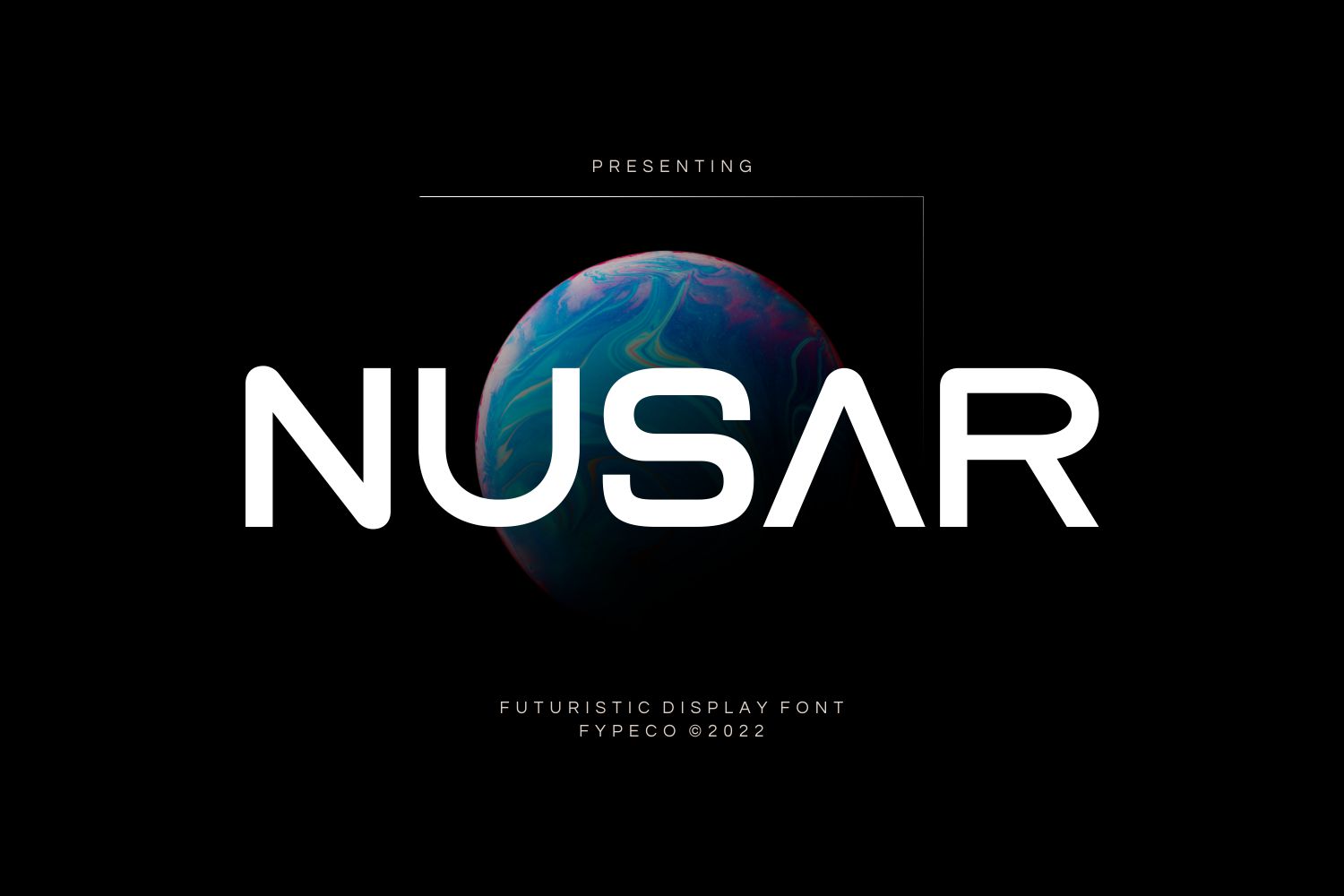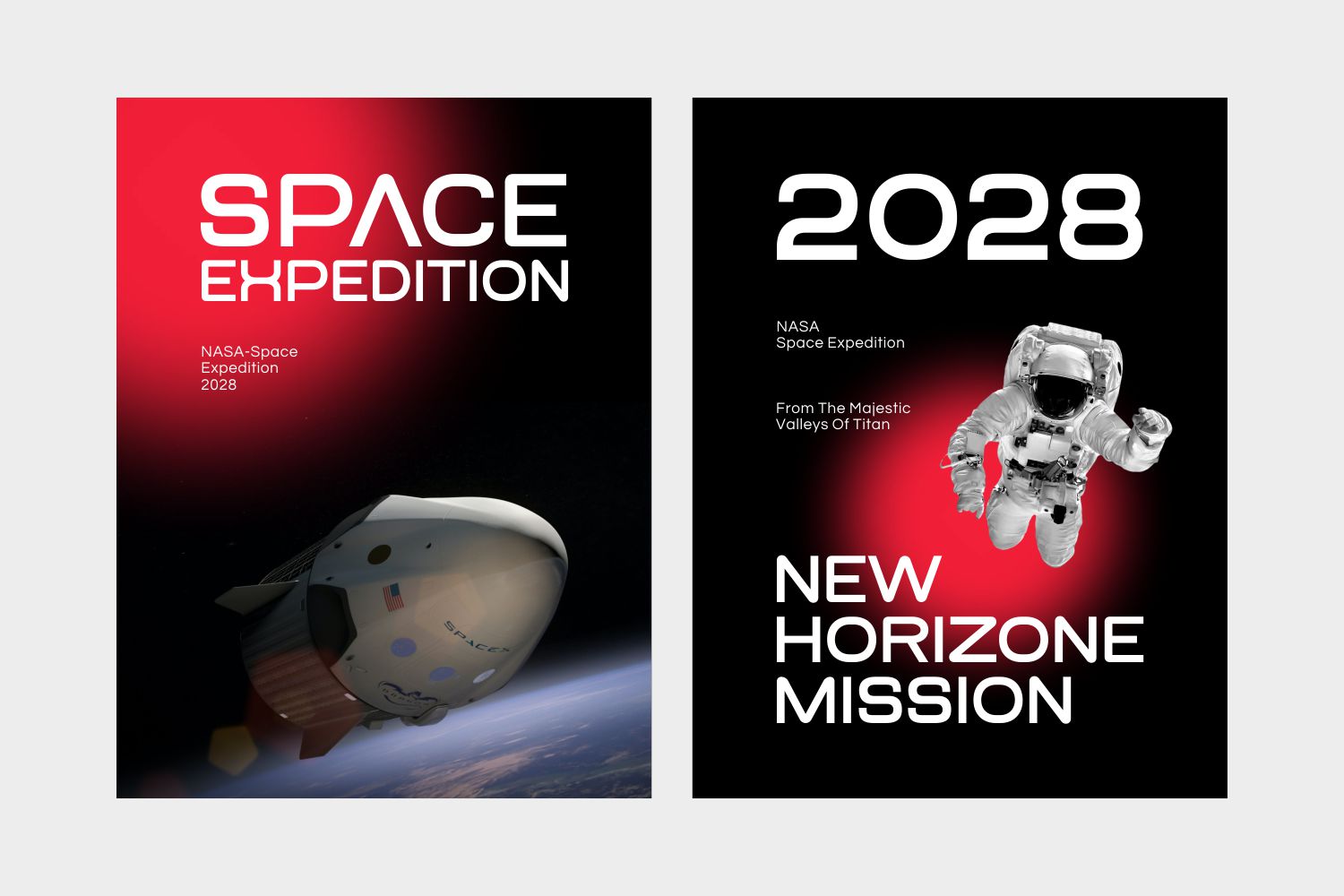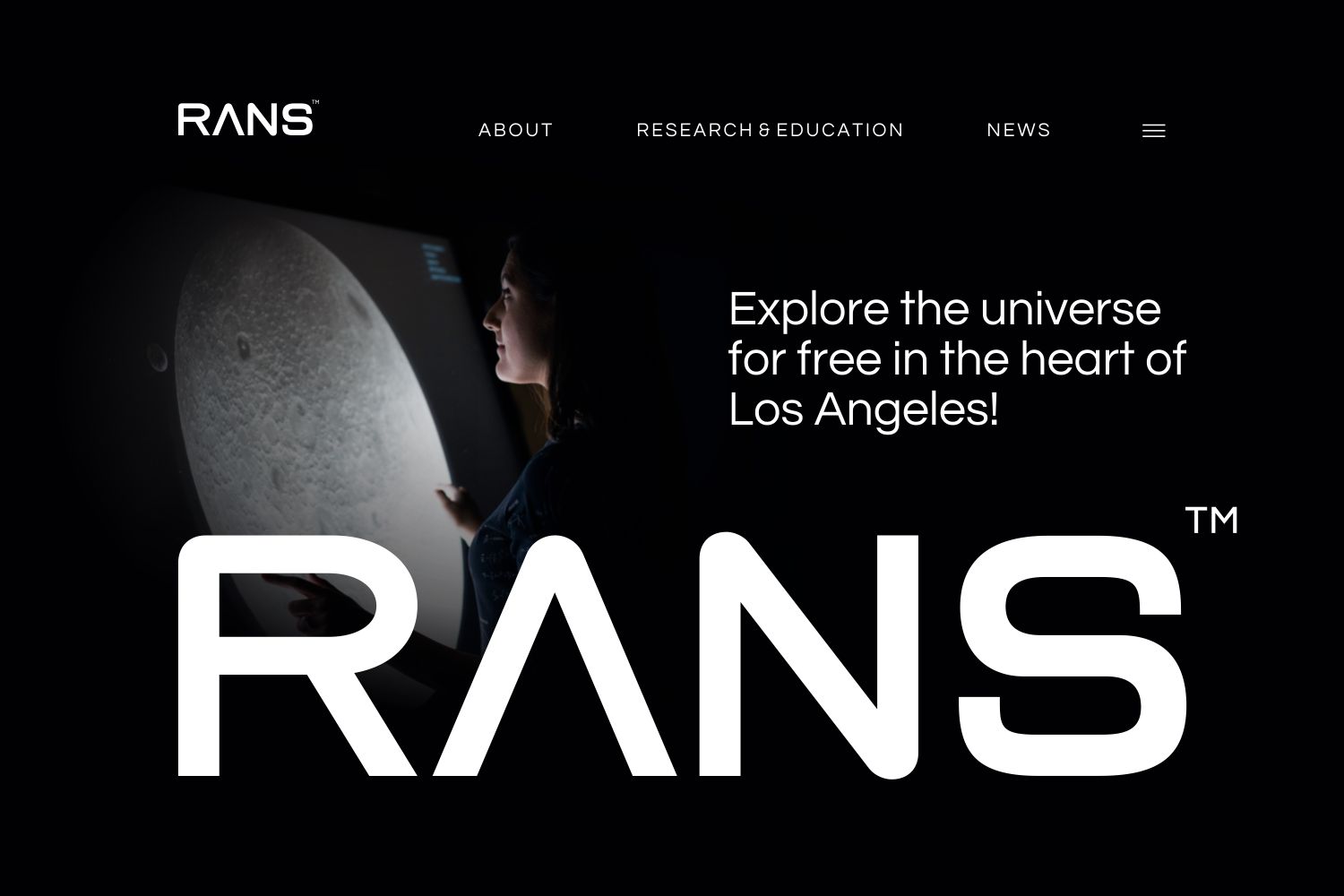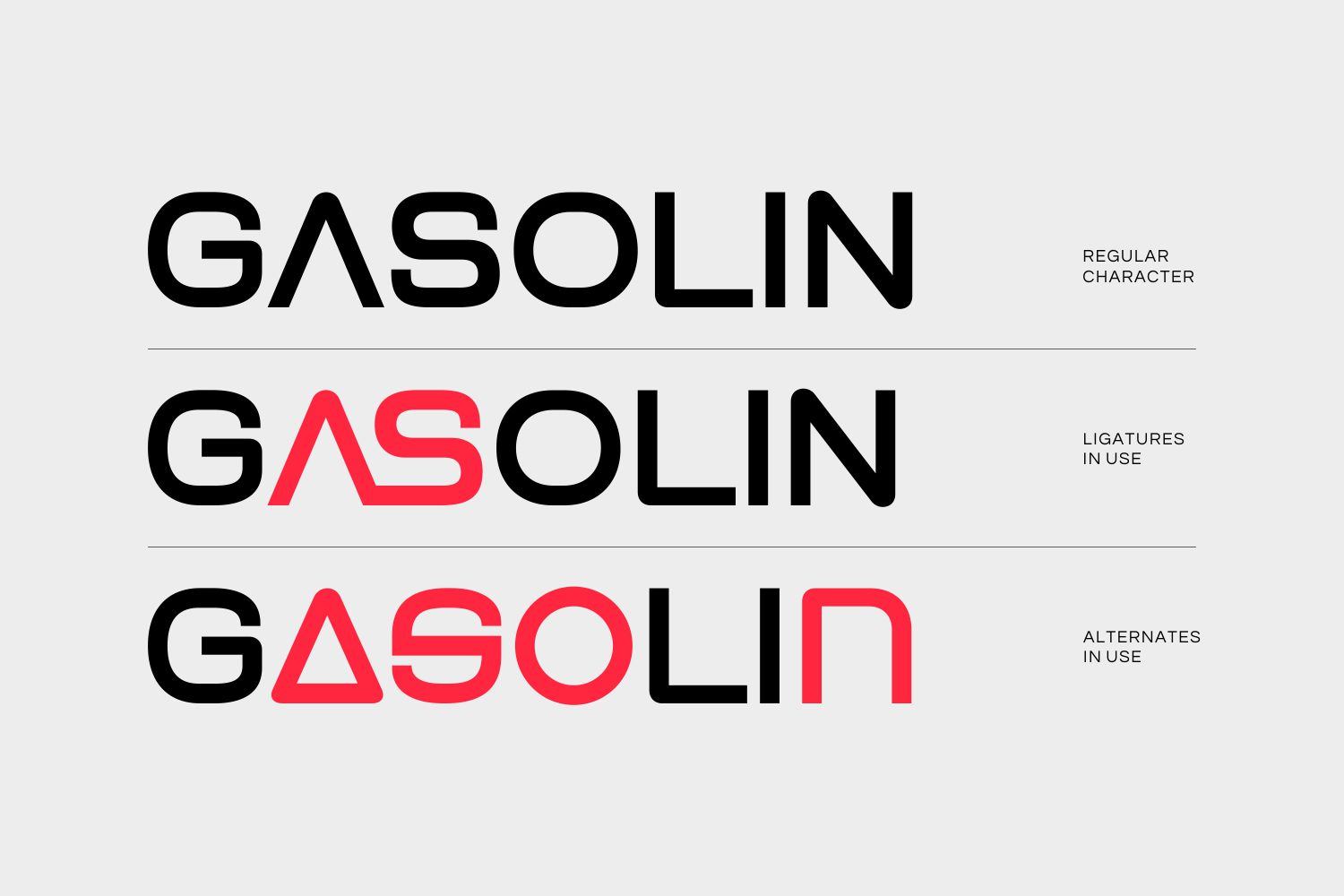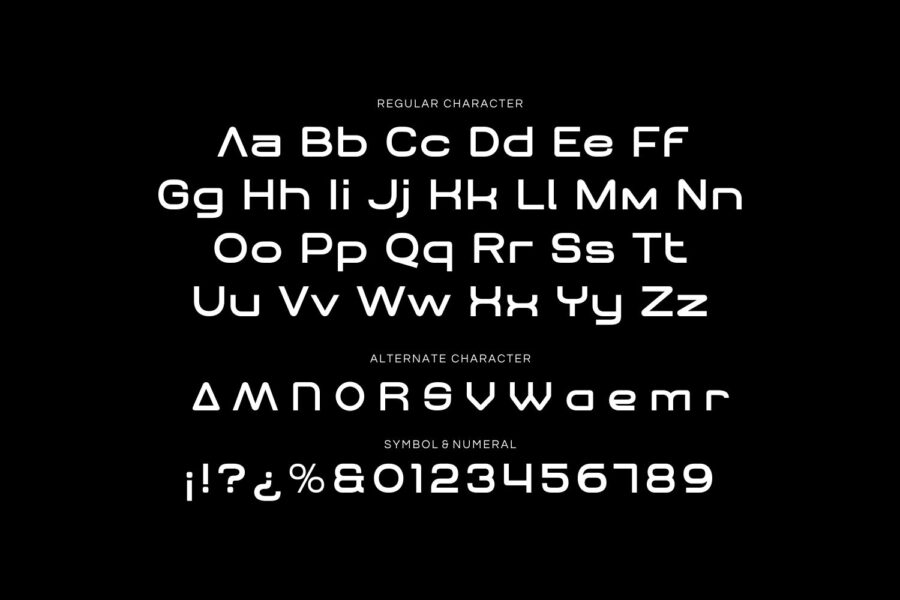
Nusar is a futuristic display font designed with clean geometric lines and smooth curves, making it ideal for projects that demand a modern and innovative look. With its bold yet minimal style, Nusar captures the essence of space exploration, cutting-edge technology, and forward-thinking design. Perfect for posters, branding, and editorial layouts, this font adds a sleek futuristic vibe to any project.
Equipped with alternate characters, ligatures, and a complete set of symbols and numerals, Nusar offers flexibility and creativity for diverse applications. From tech branding to sci-fi movie titles, product packaging, digital interfaces, and modern advertising, this font ensures your designs stand out with a sharp, futuristic identity.
Nusar